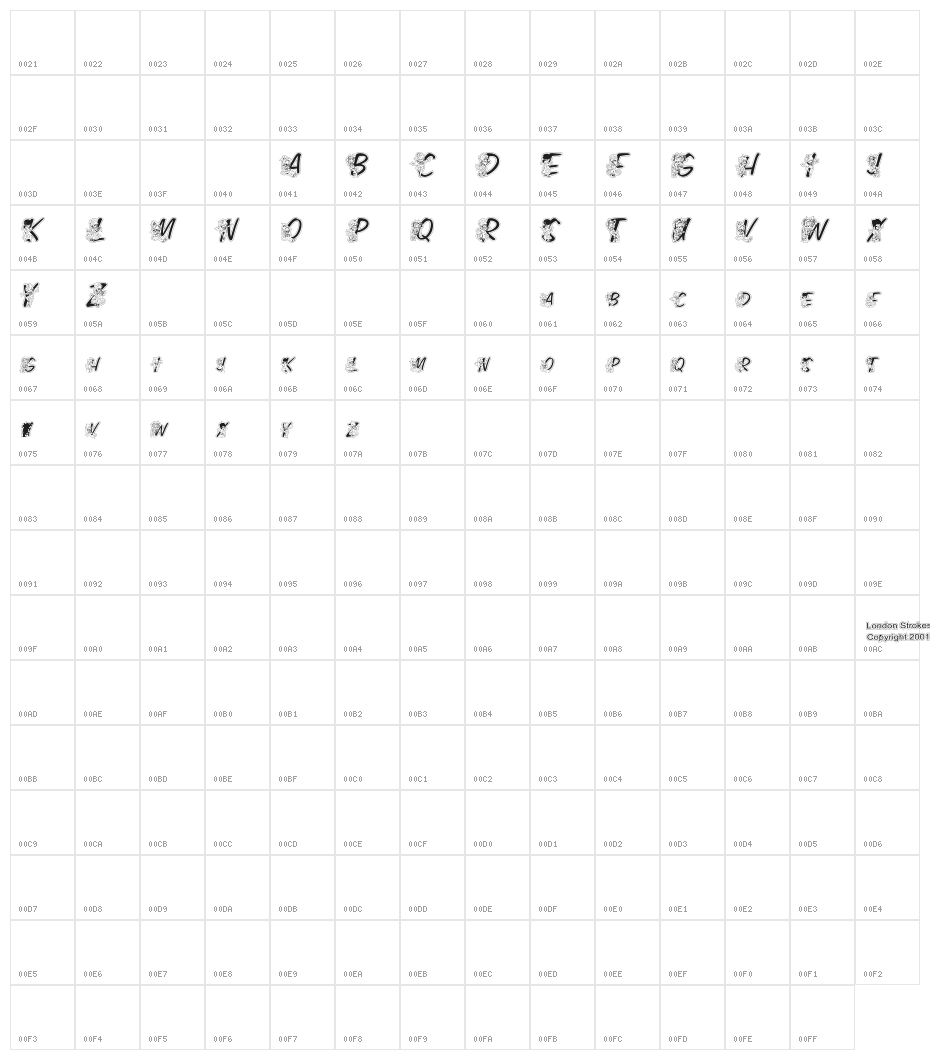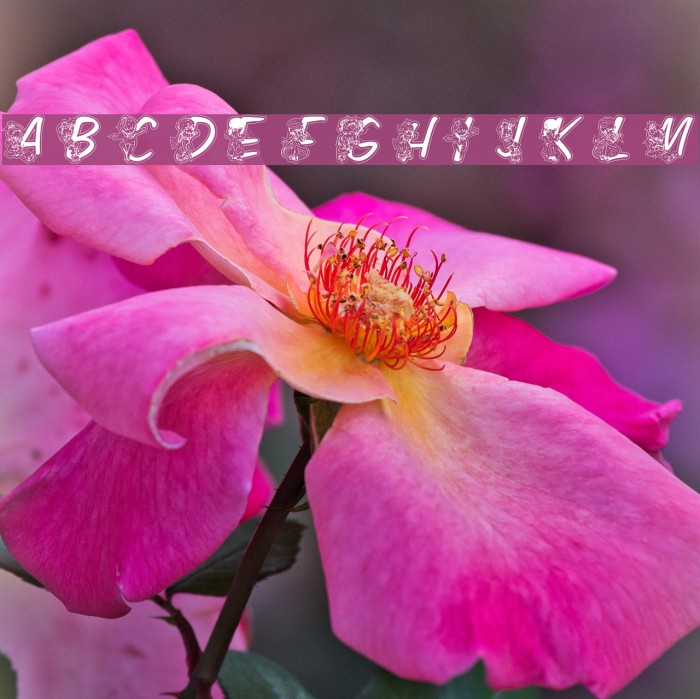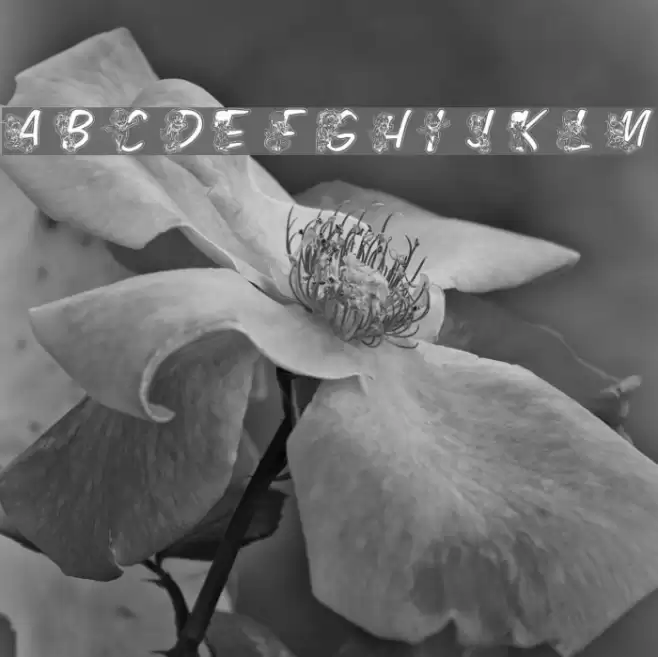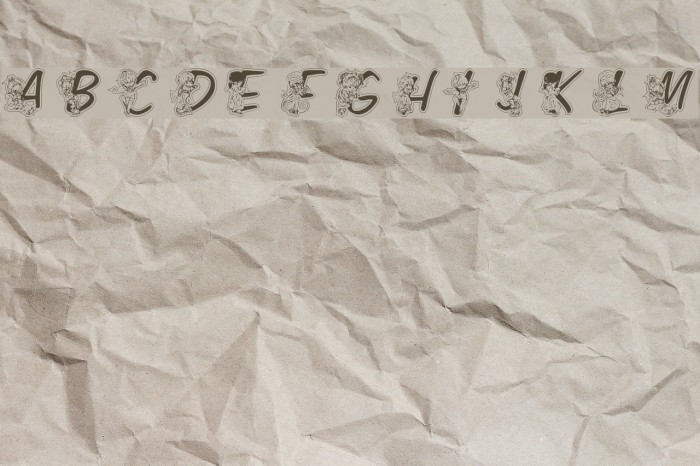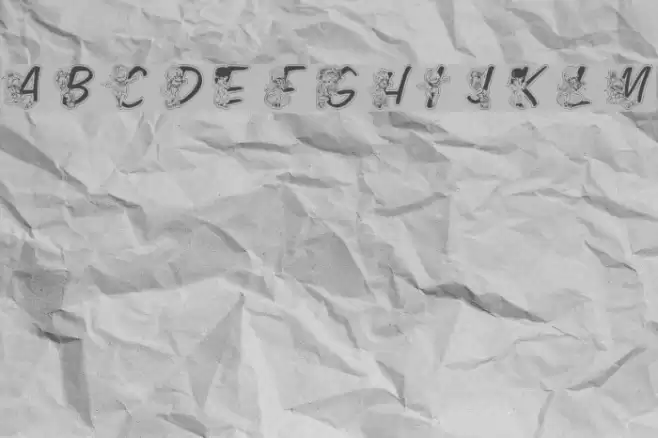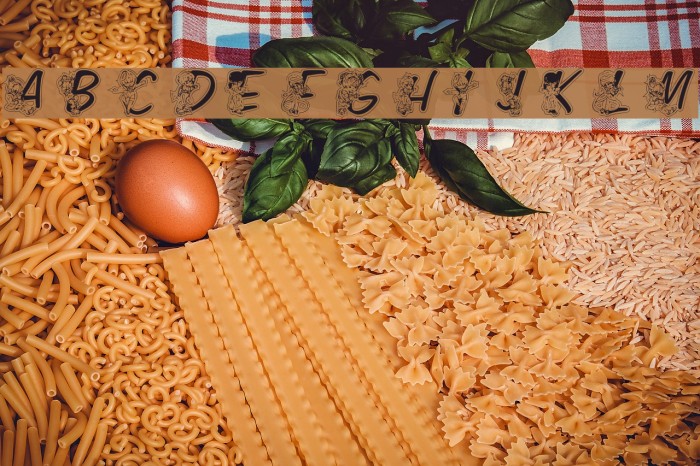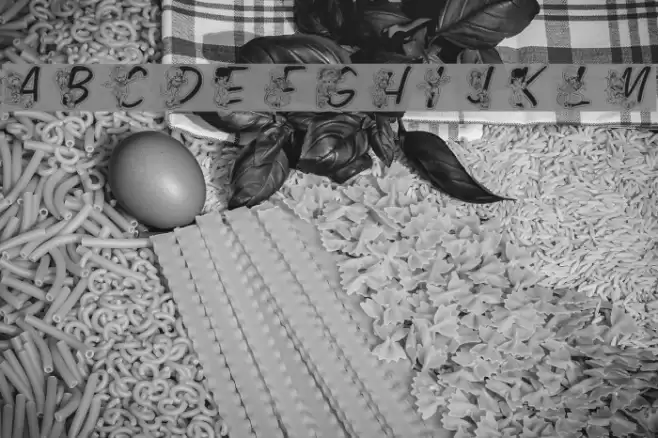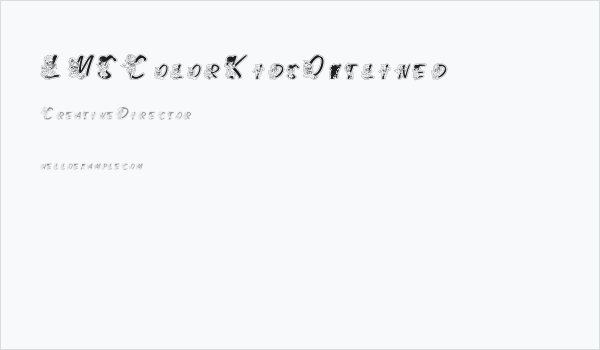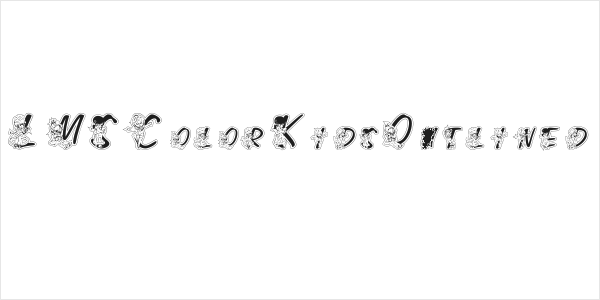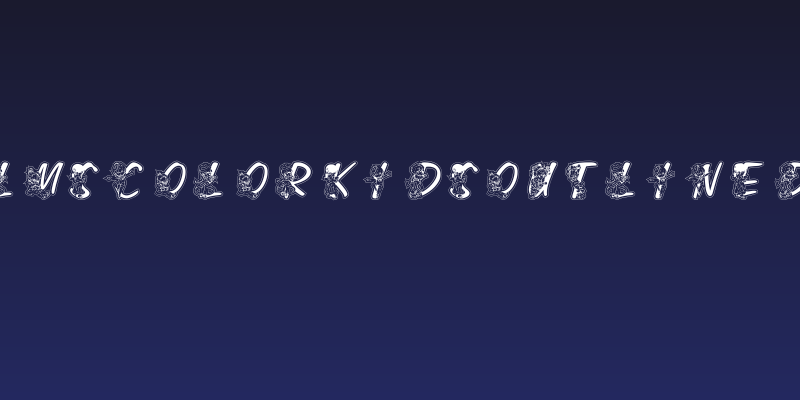
LMS Color Kids Outlined Font
LMS Color Kids Outlined Description
This playful and whimsical font features bold, outlined letters with charming cartoon characters integrated into each letterform. The characters add a lively and engaging element, making the font ideal for children's projects. The outlines are thick, providing a strong contrast against the playful interior designs. Each letter is uniquely adorned with a different character, enhancing the font's decorative appeal. The overall style is both fun and eye-catching, perfect for capturing the attention of a young audience.
| Proposed Projects | Ideal for children's books, educational materials, playful posters, and kid-friendly branding. |